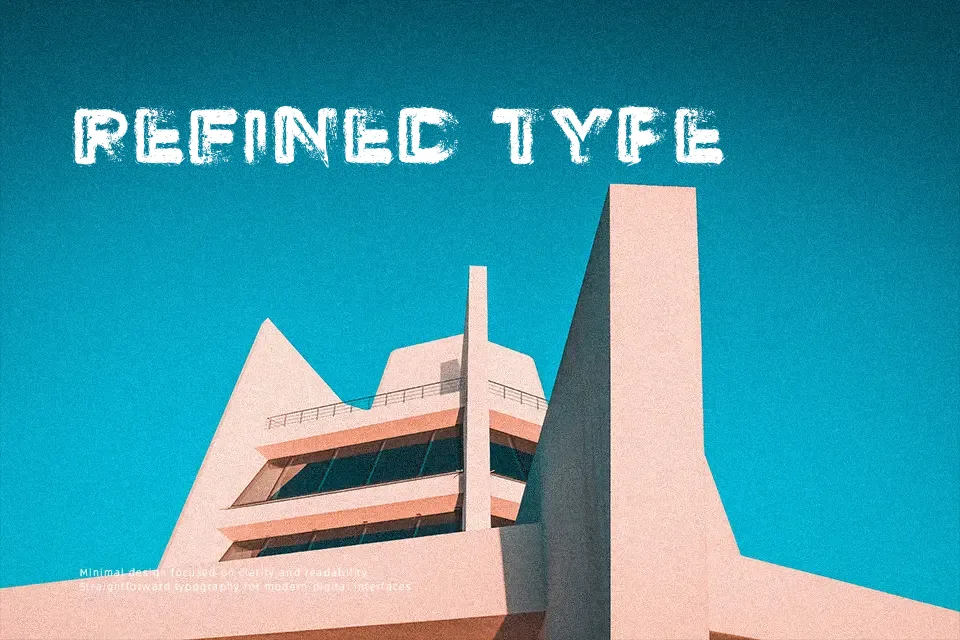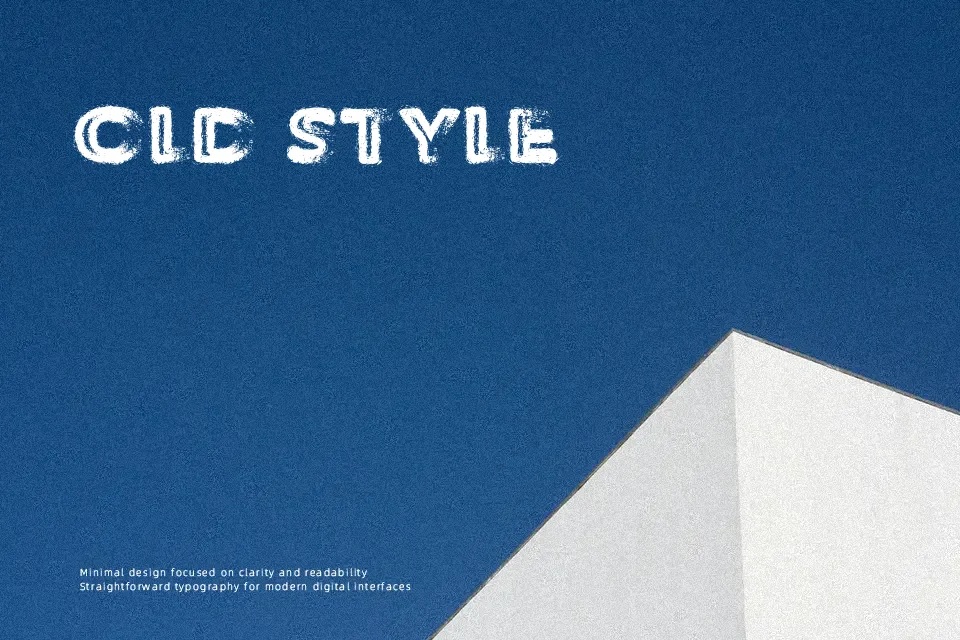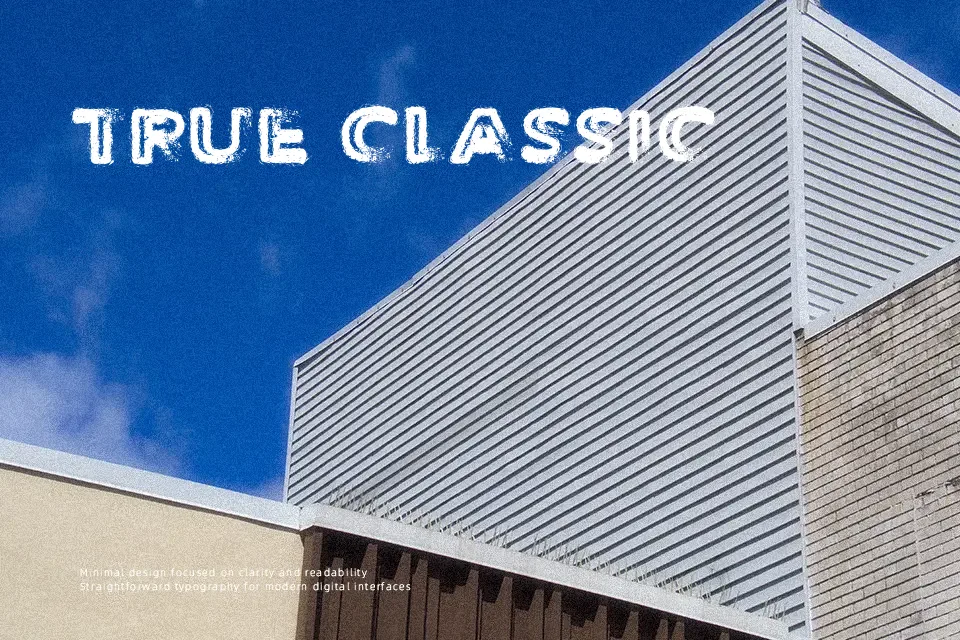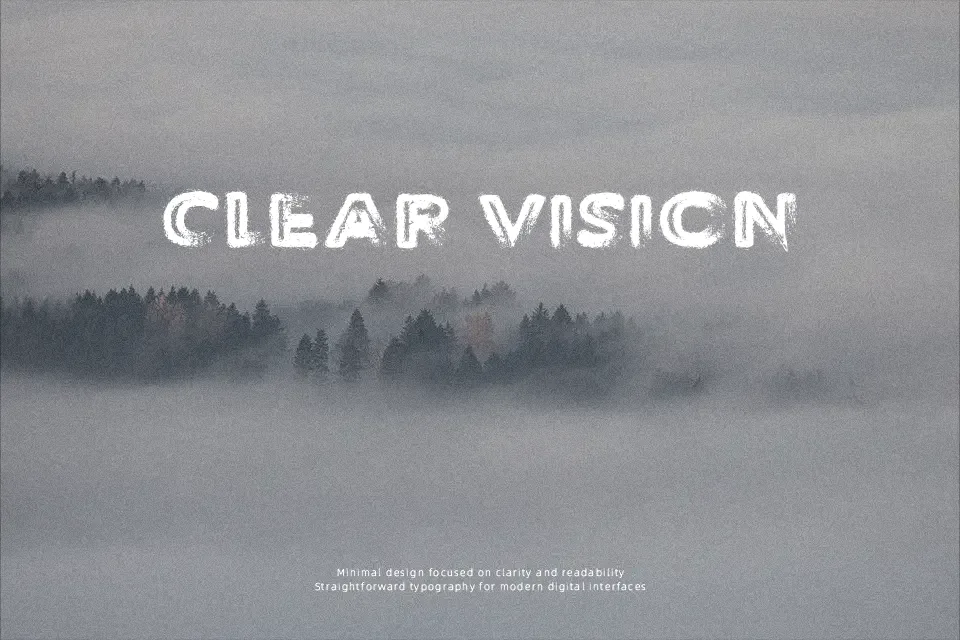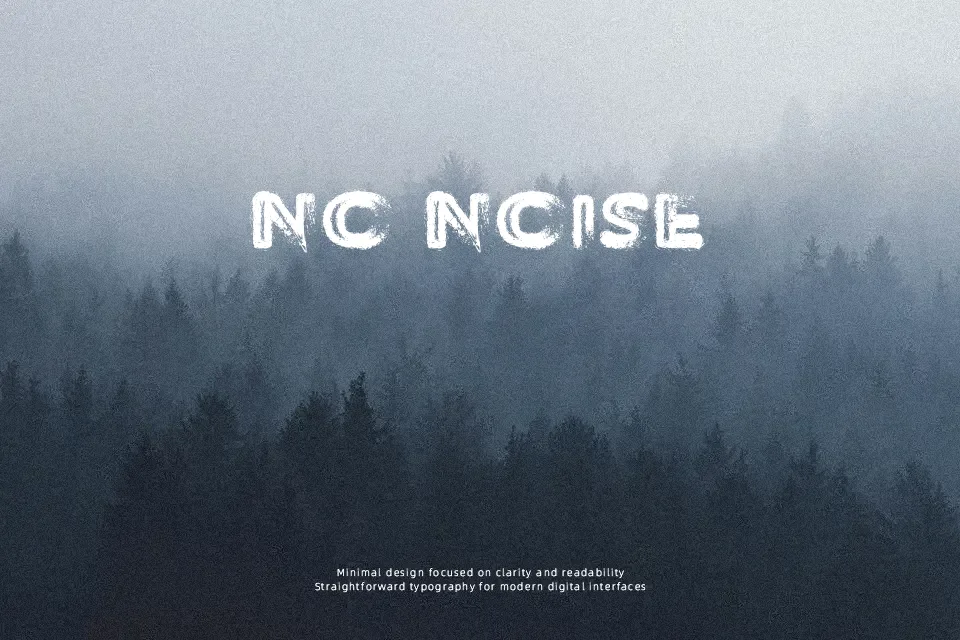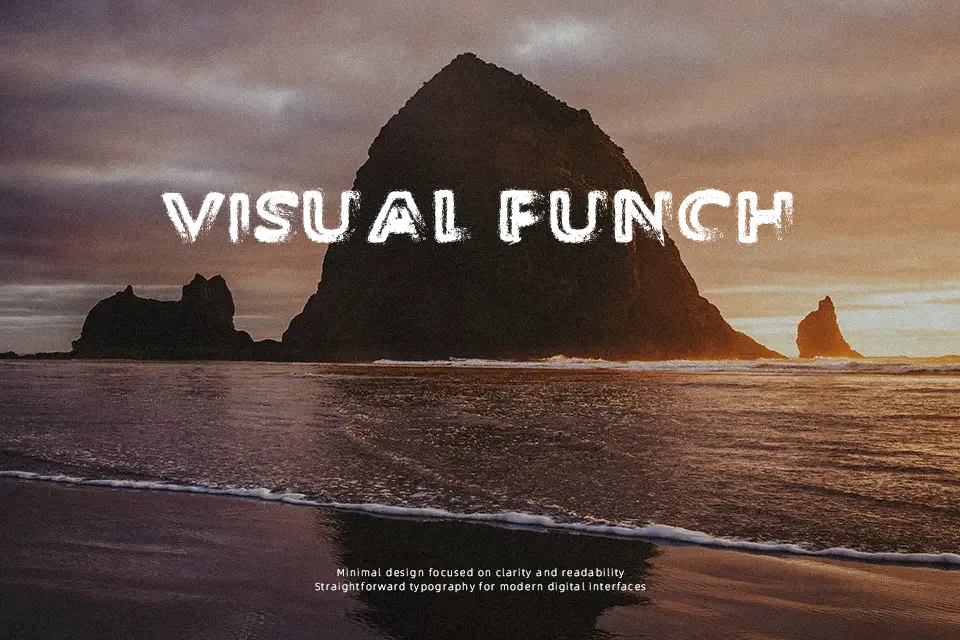
The Decompozed Font
The Decompozed Font delivers an aggressive display aesthetic defined by severely distressed letterforms, jagged outer silhouettes, and decayed internal textures. Thick underlying stroke weights establish robust presence across every character, while ragged contours and fragmented edges evoke urban decay and tactile wear. Spacing remains relatively tight to maintain structural cohesion, keeping titles dense and punchy. However, the intricate visual destruction severely impedes reading comfort in continuous paragraphs, causing small text to lose definition rapidly. For horror media titling, underground apparel graphics, and album artwork, the typeface commands immediate attention with authentic tactile grit.
Best For: horror movie title screens, death metal album covers, underground apparel graphics, Halloween event flyers
Not Ideal For: continuous body text, mobile interface labels, corporate identity guidelines, small tabular data
Perfect for branding, headline, and music, with a dark and decorative style.